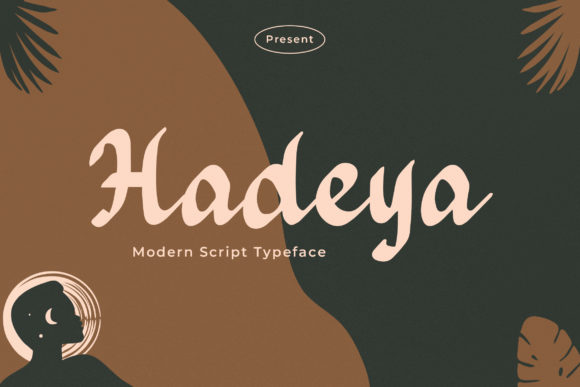
Feast your eyes on Hadeya Font, the captivating script font that's poised to transform your creative vision into a visual masterpiece. Its alluring strokes resemble the graceful dance of a paintbrush, leaving an imprint of elegance and artistry in its wake.
With Hadeya Font gracing your designs, you'll elevate the mundane into the extraordinary, turning ordinary words into works of art. Imagine your wedding invitations adorned with Hadeya's enchanting curves, carrying your heartfelt words with a touch of timeless charm. Or envision your thank-you cards radiating gratitude, each letter a testament to your appreciation.
Hadeya Font isn't just limited to formal occasions; it's a versatile chameleon that adapts seamlessly to any creative endeavor. Quotes, greeting cards, logos, business cards—no design challenge is too big or too small for this font's transformative power.
Step into the realm of Instagram artistry, where Hadeya Font reigns supreme as the ultimate font for captivating posts and stories. Its visually striking characters are tailor-made to make your content shine, drawing followers into your world of visual enchantment.
Hadeya Font isn't merely a collection of letters; it's a gateway to a world where creativity knows no bounds. A world where your words dance with grace, your designs exude elegance, and your Instagram feed becomes a symphony of visual delight. Embrace Hadeya Font today and unlock the boundless possibilities that await your creative genius.